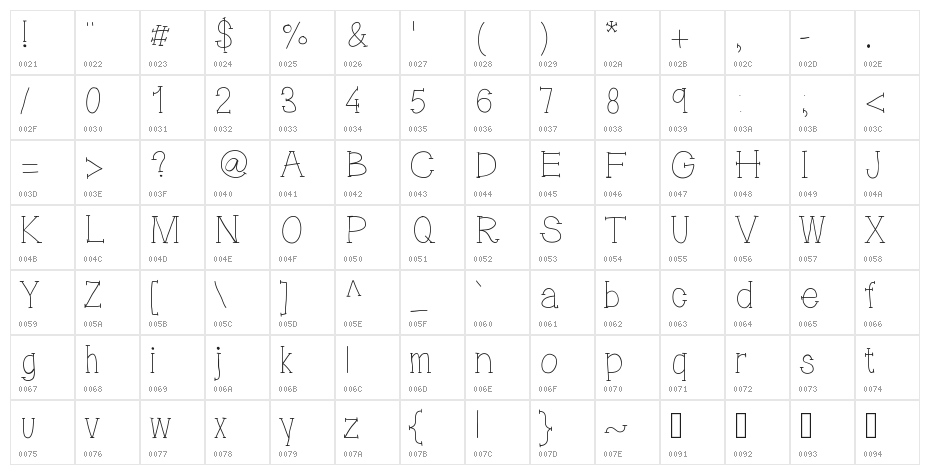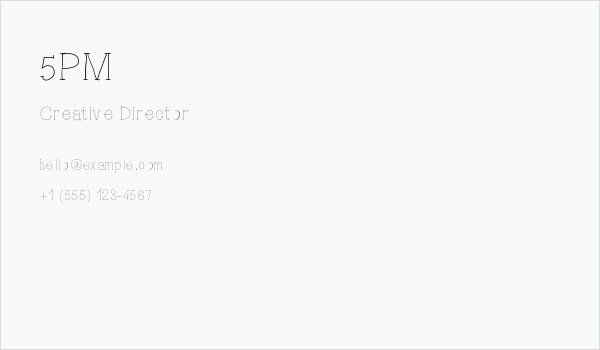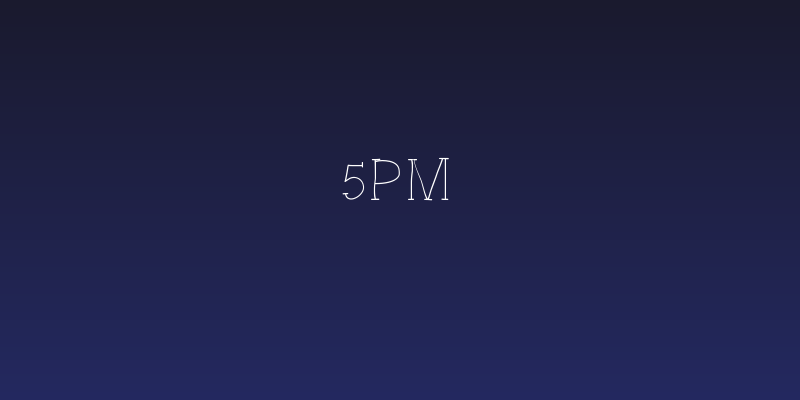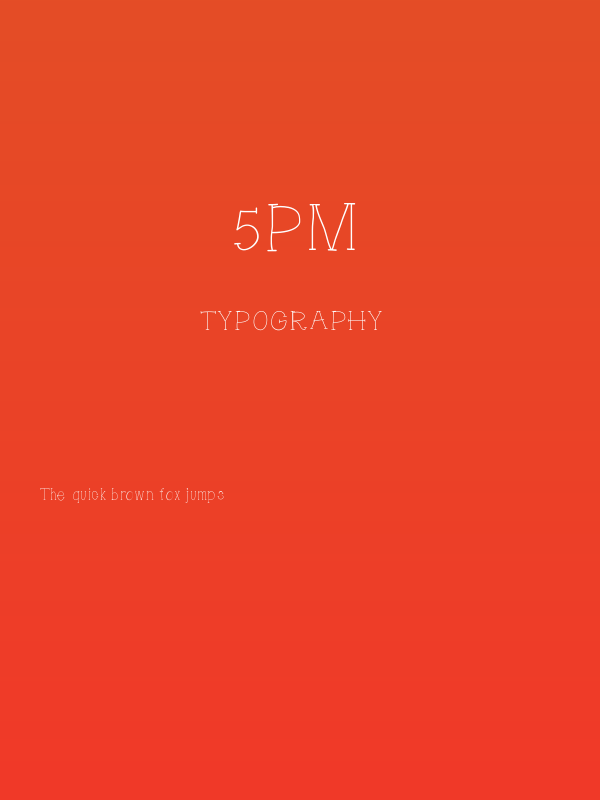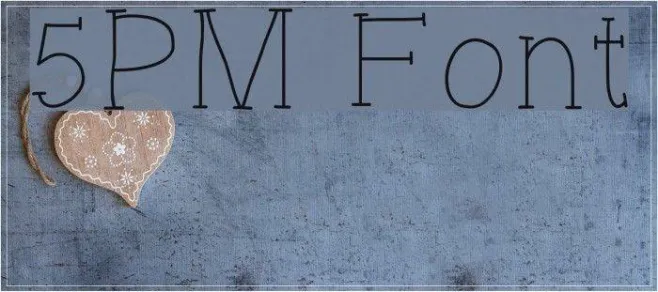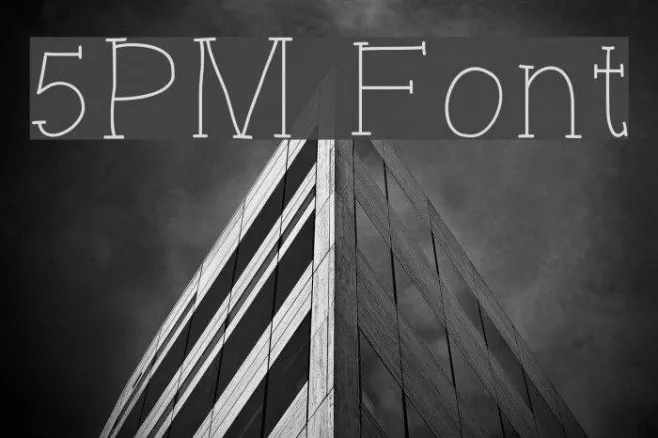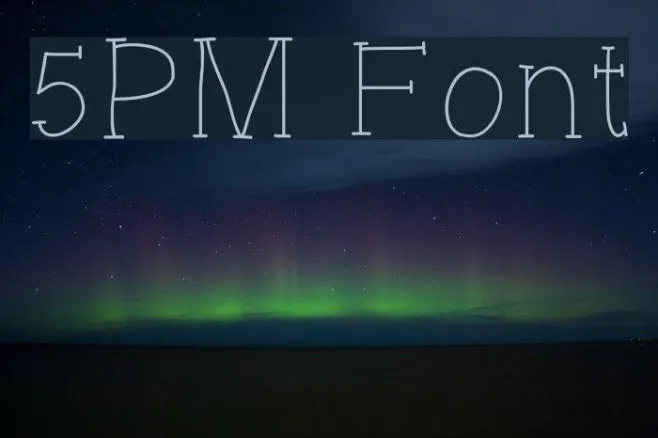
5PM Font
5PM Description
This font features a playful and whimsical design with thin, delicate strokes and a hand-drawn appearance. The characters are slightly irregular, adding a charming and informal feel. The uppercase letters are tall and narrow, while the lowercase letters maintain a consistent height with rounded edges. The numbers and special characters follow the same playful style, making the font suitable for creative and casual projects. The overall look is light and airy, with a unique personality that stands out.
| Proposed Projects | Ideal for children's books, greeting cards, playful branding, and creative invitations. |